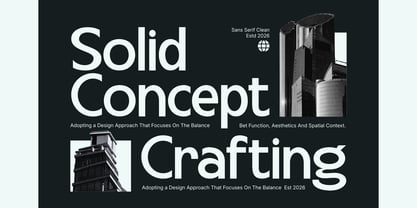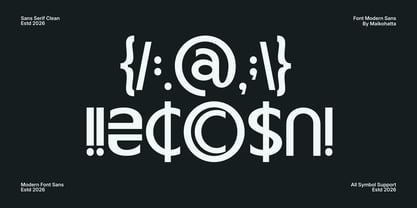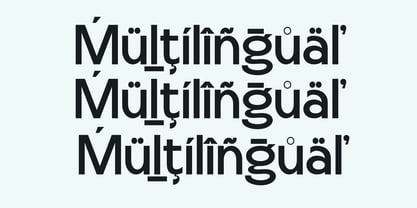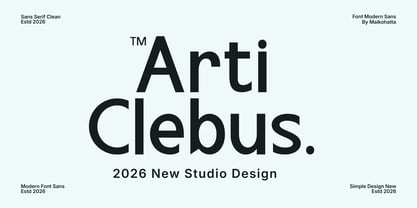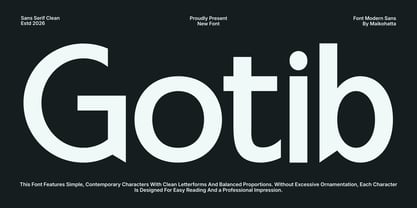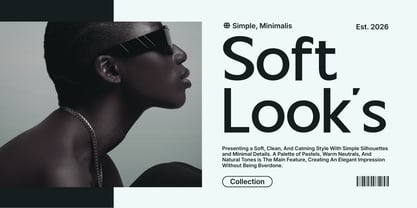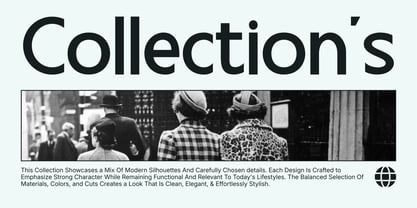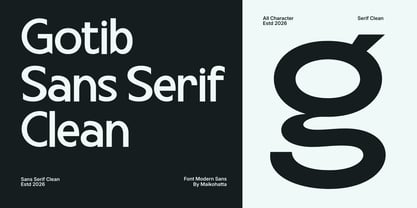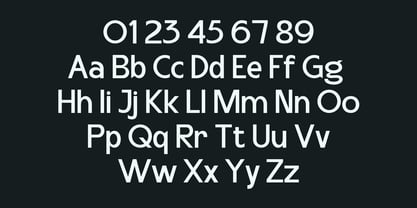
Gotib
La familia tipográfica Gotib fue diseñada por Gilang Ternadho y publicada por Maikohatta. Gotib contiene 1 estilos. Más información sobre esta familia
Introducing our new product Gotib – Elegant Modern Sans Serif Gotib is a modern, clean sans serif font designed with simplicity, clarity, and contemporary style in mind. Its balanced proportions and refined letterforms create a professional and highly legible look. Without excessive ornamentation, each character is carefully designed to ensure clarity and versatility across a wide range of design applications. This font is perfect for branding, logos, headlines, posters, web design, UI/UX, editorial layouts, and social media content. Its modern, minimalist aesthetic makes Gotib an excellent choice for creative, corporate, technology, fashion, and startup projects. Gotib presents a fresh, confident, and elegant look that perfectly aligns with current modern design trends.